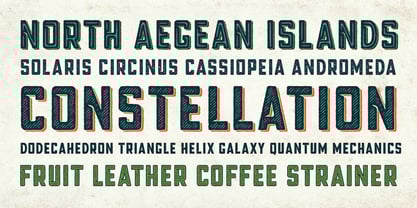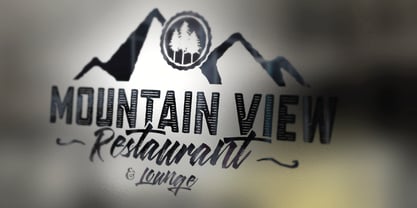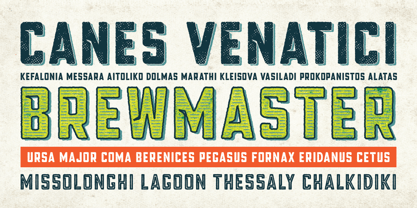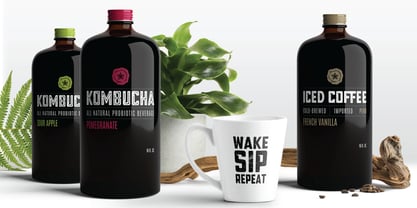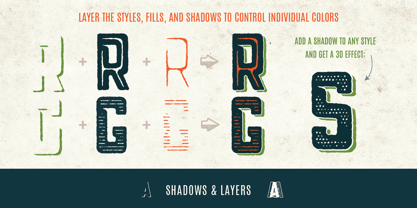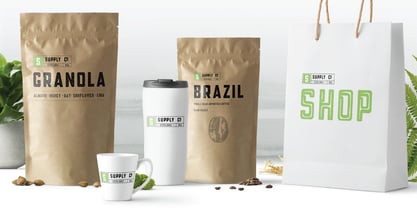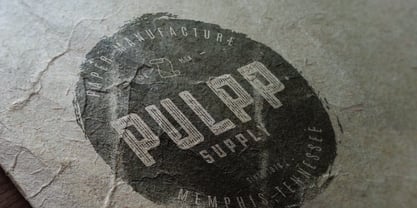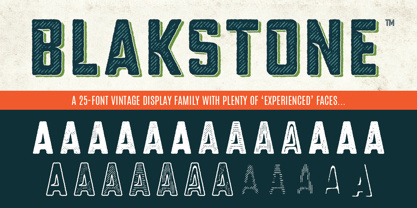
Blakstone Font
This Blakstone Font is perfect for architectural firm branding, stone masonry companies, construction industry materials, monument engraving services, luxury real estate developments, solid foundation communications, structural engineering firms, premium quarry businesses, fortress-style gaming graphics, and durable building materials.
What makes this Blakstone Font exciting is its stone-solid strength that captures the enduring durability and architectural permanence of masterful stonework and structural excellence. The font features robust letterforms with stone-like characteristics that convey architectural stability, enduring strength, and monumental permanence. Its solid character and stone-inspired design make it ideal for brands seeking to communicate structural excellence, enduring quality, and architectural permanence in construction and real estate markets.
The Blakstone Font family includes regular, medium, and bold weights with architectural alternates, stone variants, and structural flourishes. This comprehensive solid font family provides designers with durable typographic tools to create permanent compositions while maintaining the stone character essential for construction brands and architectural communications.
Construction companies and architectural firms consistently choose Blakstone Font Free Download for projects requiring authentic structural appeal and architectural credibility. This font's distinctive solid character perfectly captures the enduring strength and architectural excellence that resonate with audiences who appreciate quality construction, structural integrity, and brands that embody permanent building solutions and stone-solid reliability.
The monumental construction of Blakstone Font showcases powerfully designed letterforms with architectural proportions that ensure exceptional durability across all construction applications. Its stone appearance and structural character create memorable impressions while maintaining the readability necessary for effective construction communication and architectural materials.
Professional designers appreciate how Blakstone Font brings immediate architectural authenticity and structural authority to brand communications. The font's solid nature allows organizations to communicate building excellence and structural permanence while maintaining the professional quality necessary for effective positioning in construction and architectural markets.
The enduring appeal of Blakstone Font makes it particularly effective for brands emphasizing structural strength, architectural permanence, and building excellence. Its stone character resonates strongly with audiences who appreciate quality construction, architectural craftsmanship, and brands that represent the enduring strength and monumental permanence of masterful stonework.
Whether developing branding for construction companies or creating materials for architectural practices, Blakstone Font Free Download provides the solid typographic foundation that building brands need to communicate their structural excellence, architectural permanence, and the stone-solid quality that defines construction industry leadership and architectural achievement.